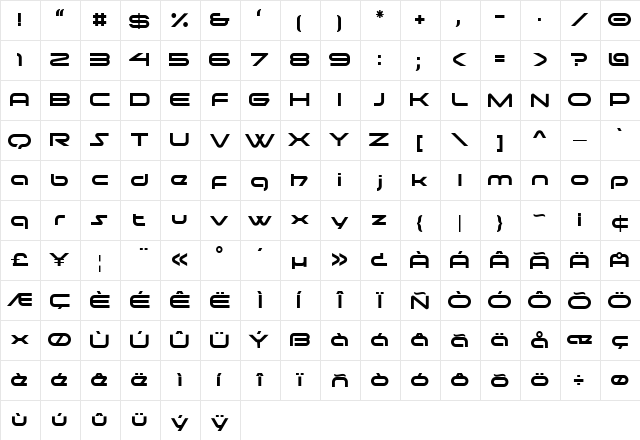
moonhouse Regular
| Foundry | NimaVisual |
| Designer | NimaVisual |
Design Context for moonhouse Typeface
moonhouse is a composed and adaptable typeface that performs quietly and consistently across a wide range of design contexts.